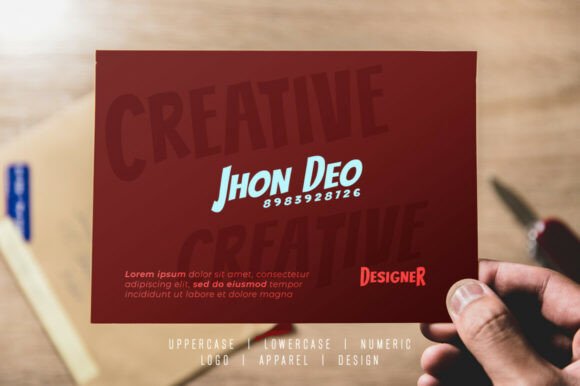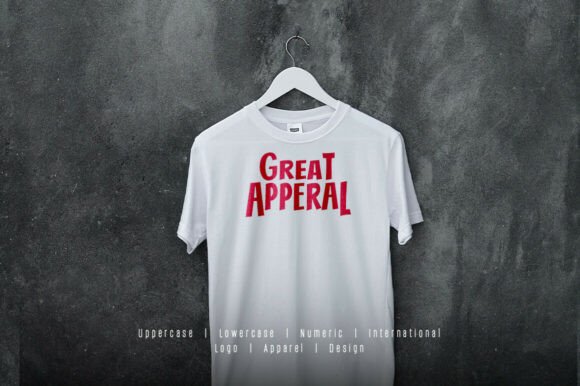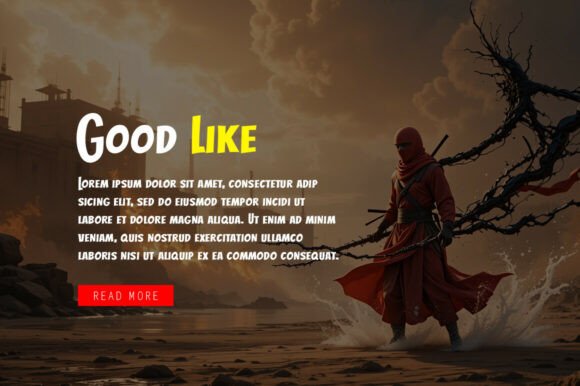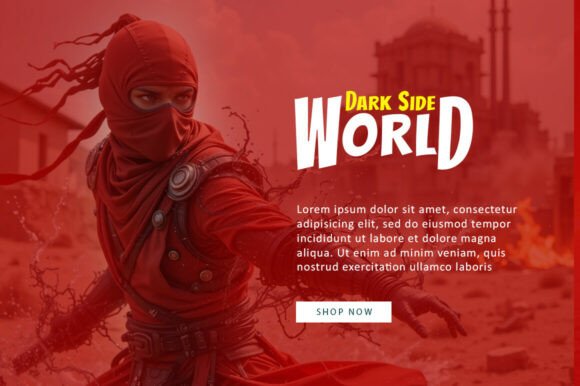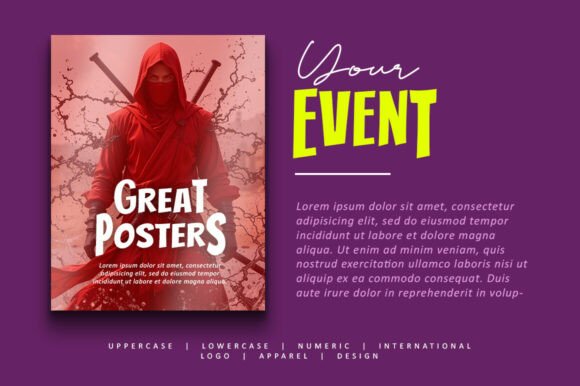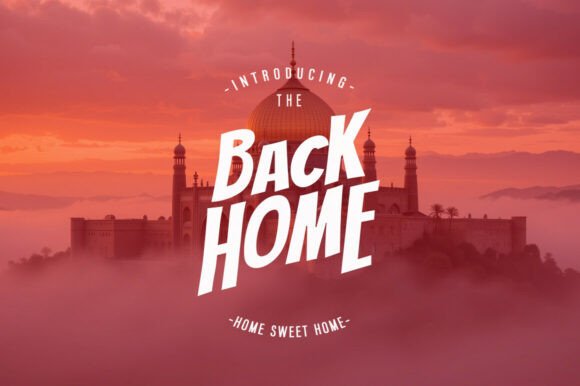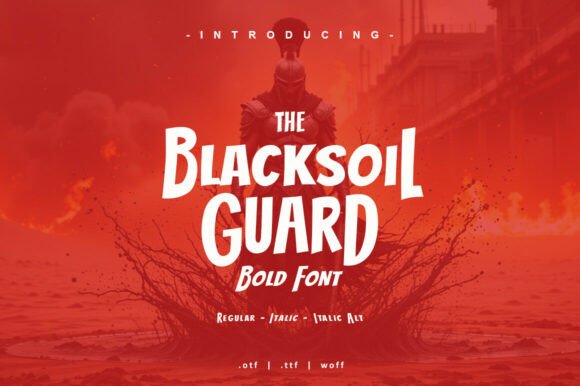
Unleash Your Creativity with Blacksoil Guard Font
Are you tired of using the same old fonts for your creative projects? Look no further than the Blacksoil Guard font, an incredibly unique display font that is sure to take your designs to the next level. Masterfully designed to become a true favorite, this font has the potential to bring each of your creative ideas to the highest level.
What Makes Blacksoil Guard Font So Special?
The Blacksoil Guard font is a one-of-a-kind display font that boasts a distinctive and eye-catching design. Its unique style is sure to make your creative projects stand out from the crowd, whether you’re working on a logo, brochure, or website. The font’s masterful design ensures that it is both visually appealing and highly legible, making it perfect for a wide range of applications.
Key Features of Blacksoil Guard Font
• Unique Display Font: Blacksoil Guard is an incredibly unique display font that is sure to grab attention.
• Masterful Design: The font has been carefully crafted to ensure that it is both visually appealing and highly legible.
• Highly Versatile: Blacksoil Guard can be used for a wide range of creative projects, from logos and brochures to websites and more.
• Easy to Read: Despite its unique design, the font is highly legible, making it perfect for use in a variety of contexts.
Why Designers and Crafters Love Blacksoil Guard Font
Designers and crafters are always on the lookout for fonts that can help them to create unique and eye-catching designs. The Blacksoil Guard font is a favorite among creative professionals for several reasons:
• Creativity Unleashed: The font’s unique design allows designers to unleash their creativity and produce truly original work.
• Time-Saving: With Blacksoil Guard, designers can quickly and easily create professional-looking designs without spending hours searching for the perfect font.
• Consistency: The font’s consistent design ensures that it can be used across a wide range of applications, from print to digital.
How to Use Blacksoil Guard Font in Your Designs
Using the Blacksoil Guard font in your designs is easy. Here are a few tips to get you started:
• Pair it with Other Fonts: Blacksoil Guard can be paired with other fonts to create a unique and eye-catching design.
• Experiment with Colors: The font looks great in a variety of colors, so don’t be afraid to experiment and find the perfect hue for your design.
• Use it for Headings: Blacksoil Guard is perfect for use in headings and titles, where its unique design can really make an impact.
In conclusion, the Blacksoil Guard font is an incredibly unique display font that is sure to take your creative projects to the next level. With its masterful design, highly legible style, and versatility, it’s the perfect choice for designers and crafters looking to create eye-catching and professional-looking designs. So why wait? Download Blacksoil Guard today and unleash your creativity!
• What is Blacksoil Guard font? Blacksoil Guard is an incredibly unique display font that is perfect for creative projects.
• Is Blacksoil Guard easy to read? Yes, despite its unique design, Blacksoil Guard is highly legible and easy to read.